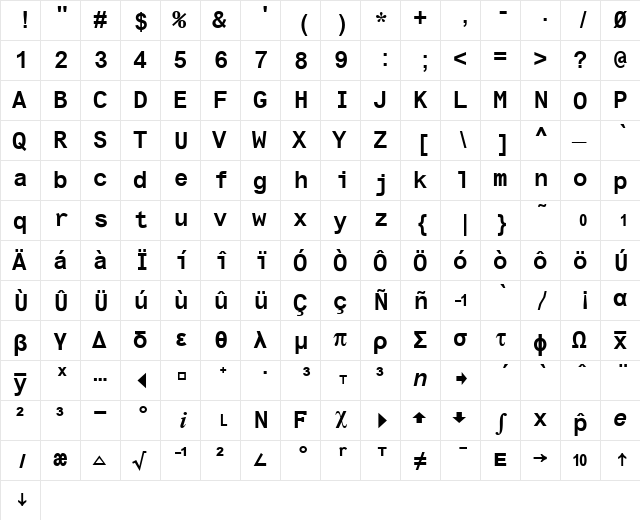
Ti83Pluspc Bold
Design Context for Ti83Pluspc Typeface
Ti83Pluspc offers clean, dependable letterforms without strong stylistic allegiance, making it a practical choice for designers who need flexibility. The heavy weight commands attention and anchors typographic hierarchies.